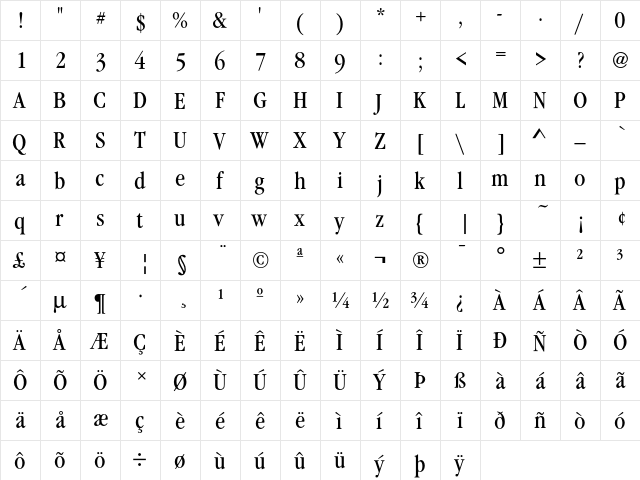
GaramItcTBooCon Regular
Design Context for GaramItcTBooCon Typeface
GaramItcTBooCon is a composed and adaptable typeface that performs quietly and consistently across a wide range of design contexts.